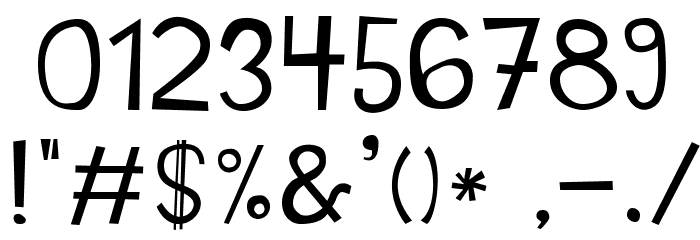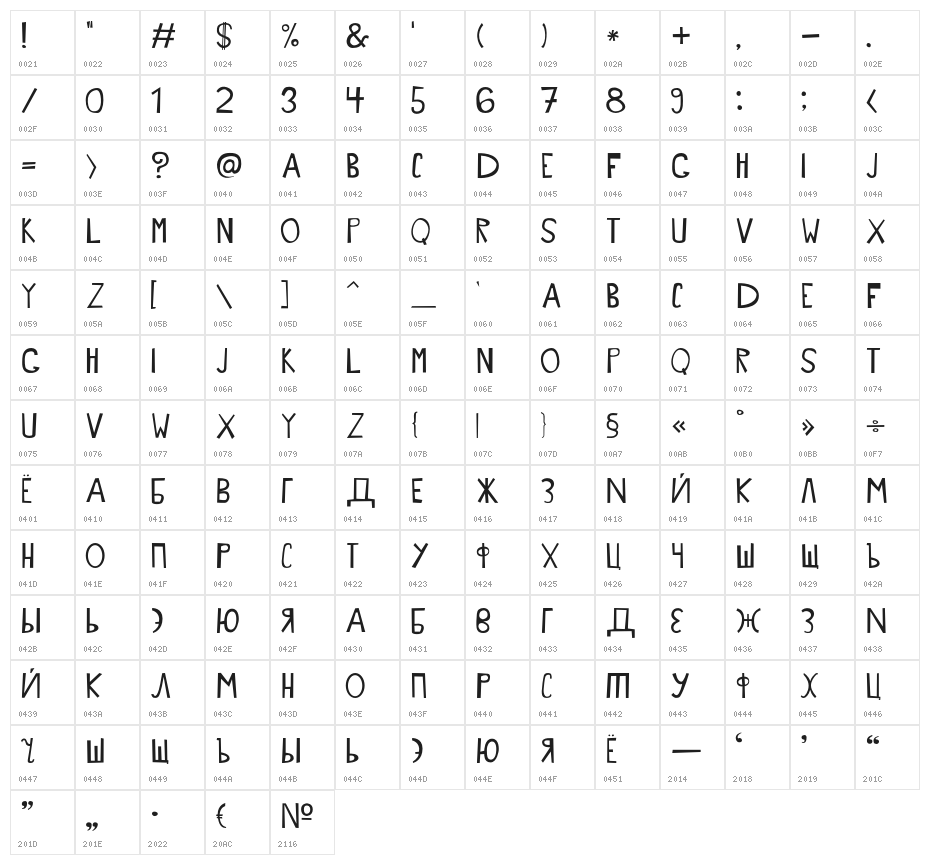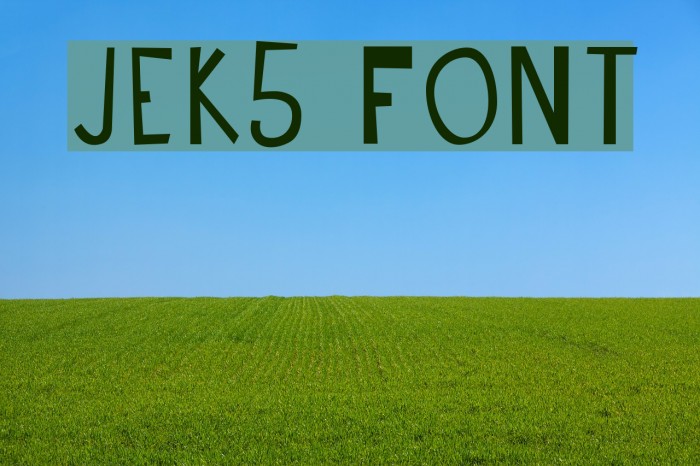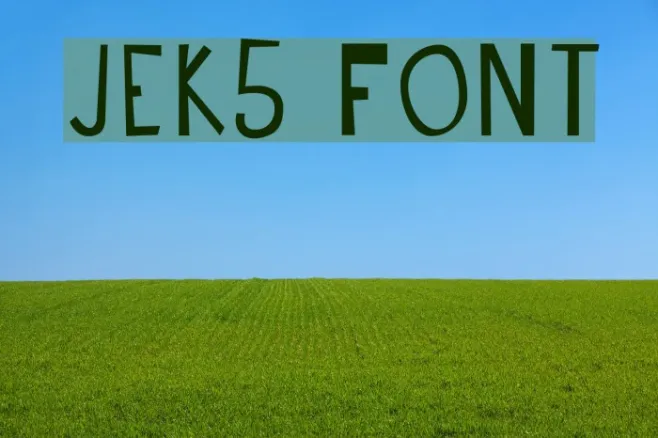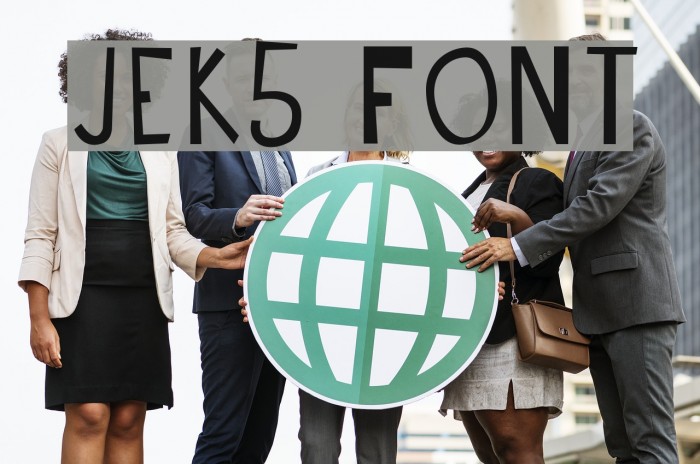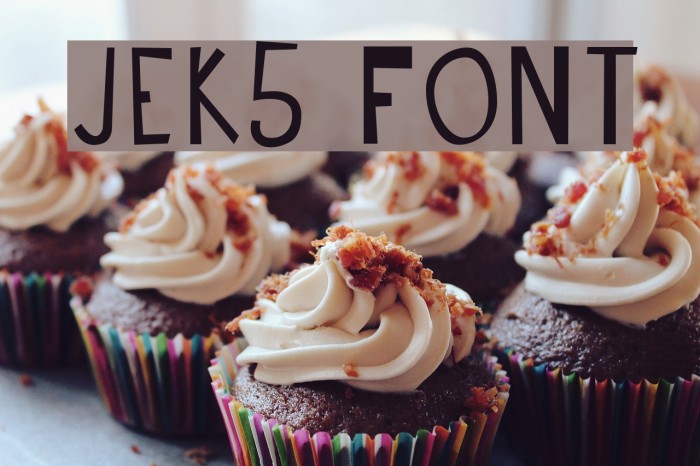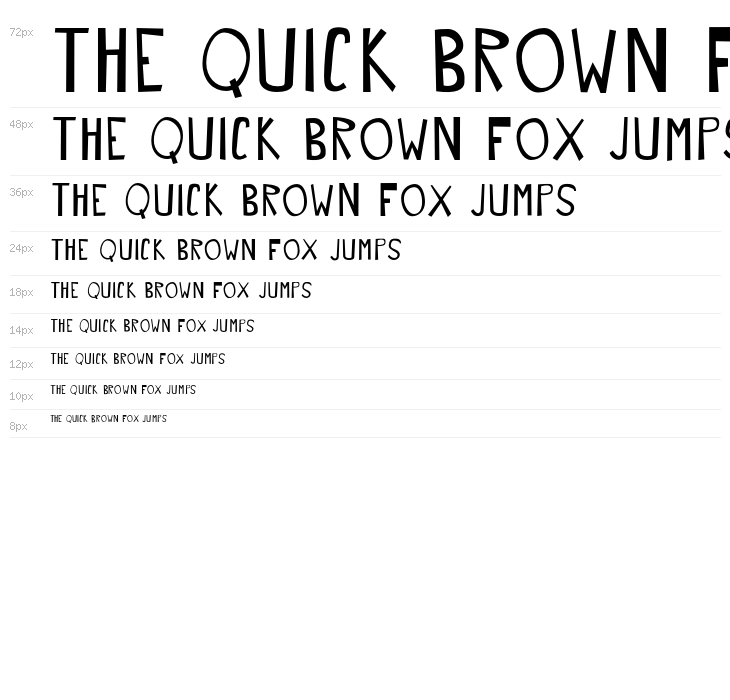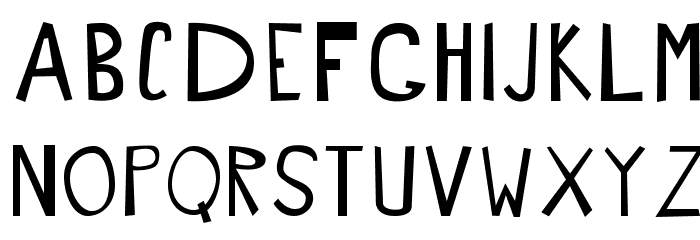
JEK5 Font
JEK5 Description
This font features a playful and quirky design, characterized by its irregular and slightly tilted letterforms. The uppercase and lowercase letters maintain a consistent style, with a mix of straight and curved lines that give it a hand-drawn appearance. The numbers and special characters follow the same whimsical style, making it suitable for creative and informal projects. The font's unique personality is enhanced by its uneven stroke widths, adding to its charm and distinctiveness.
| Proposed Projects | Ideal for children's books, creative posters, playful branding, and informal invitations. |